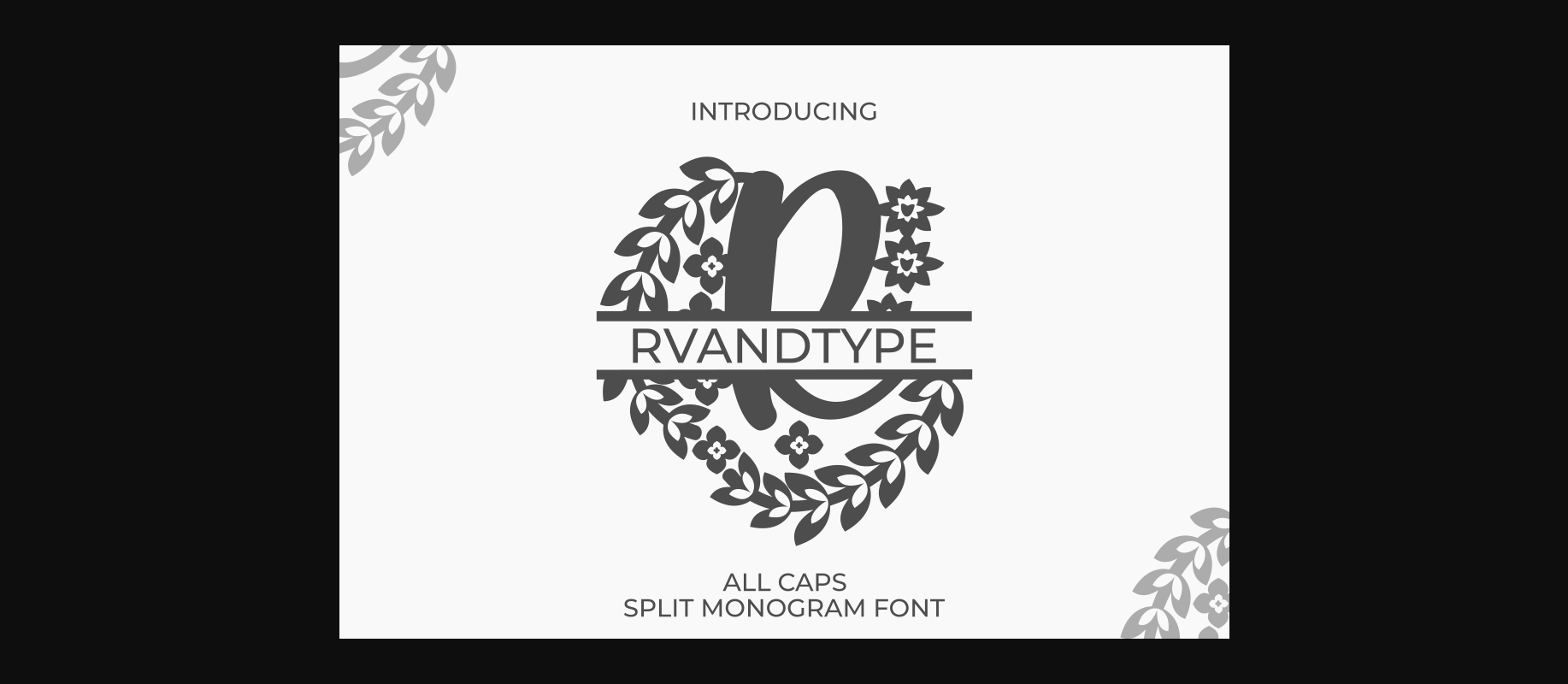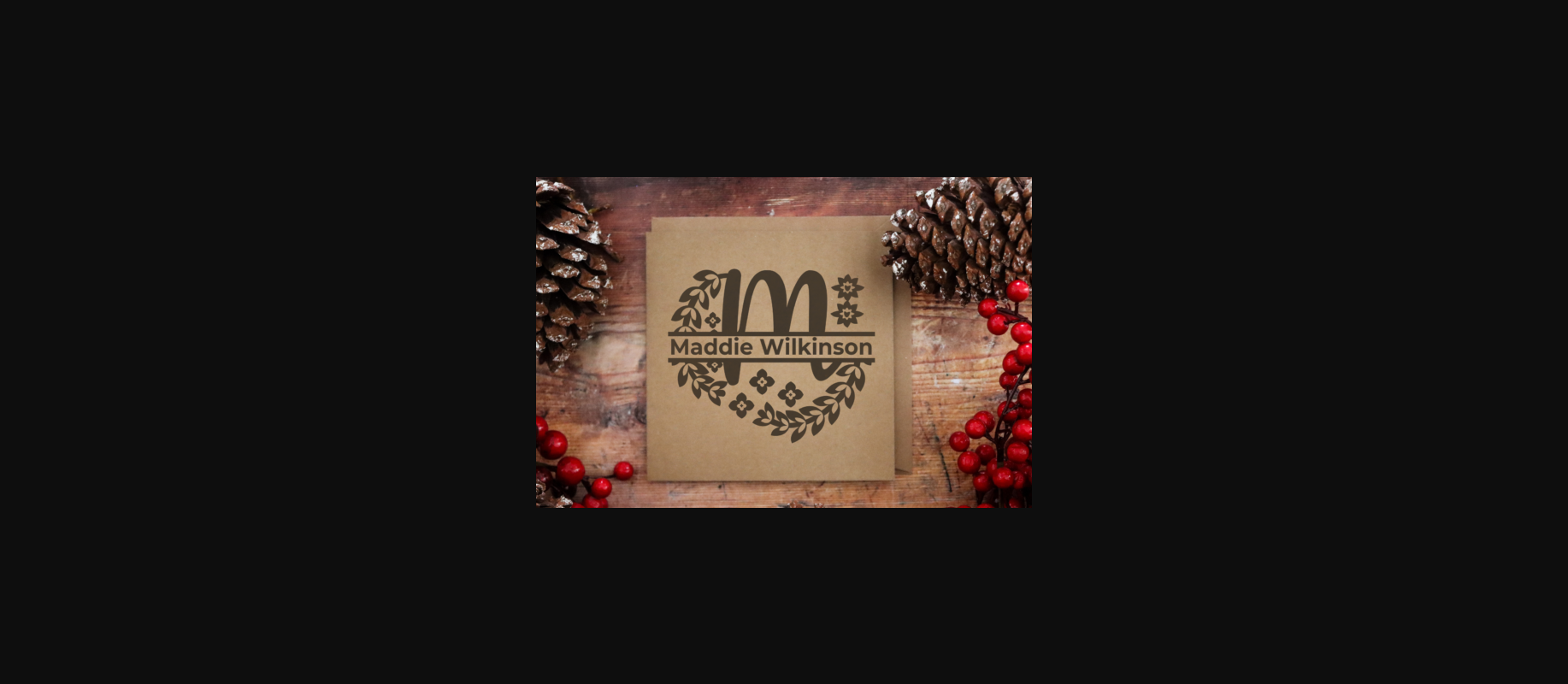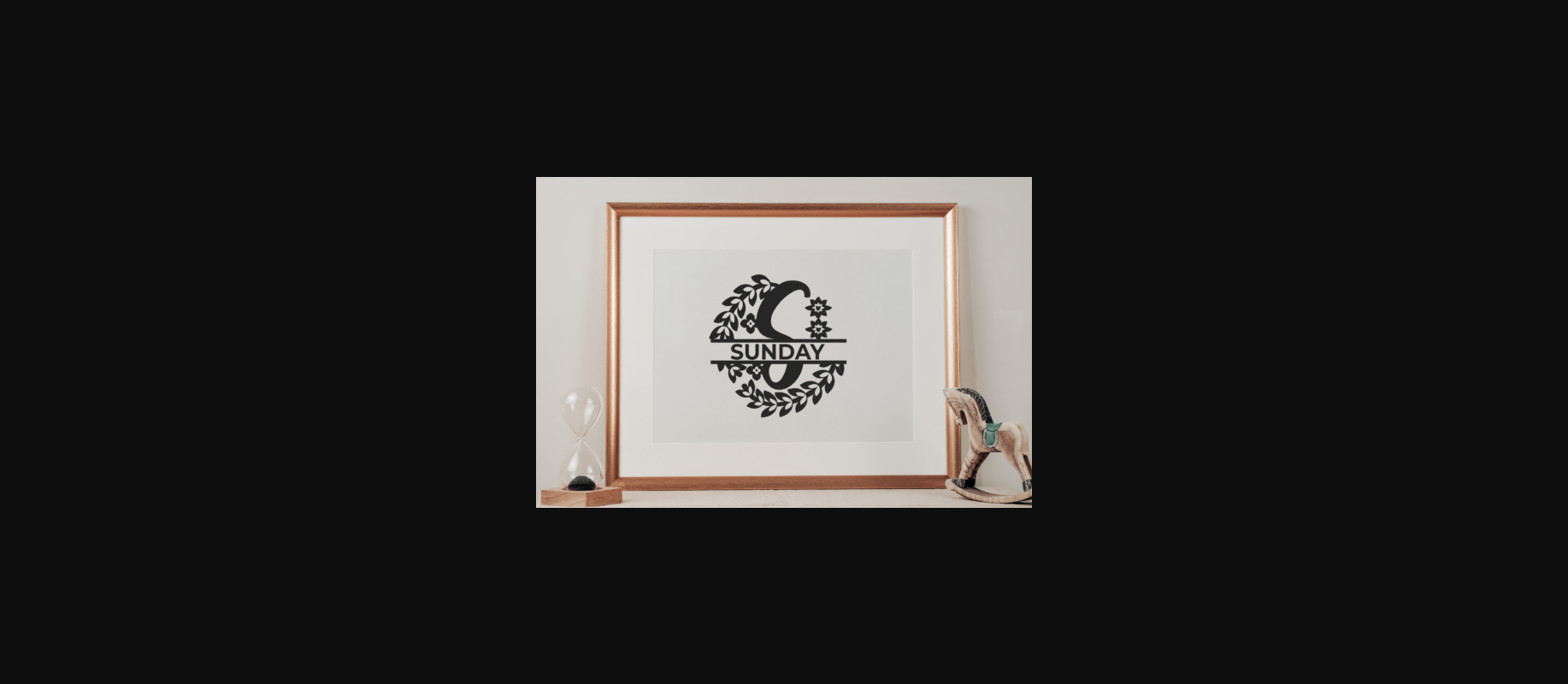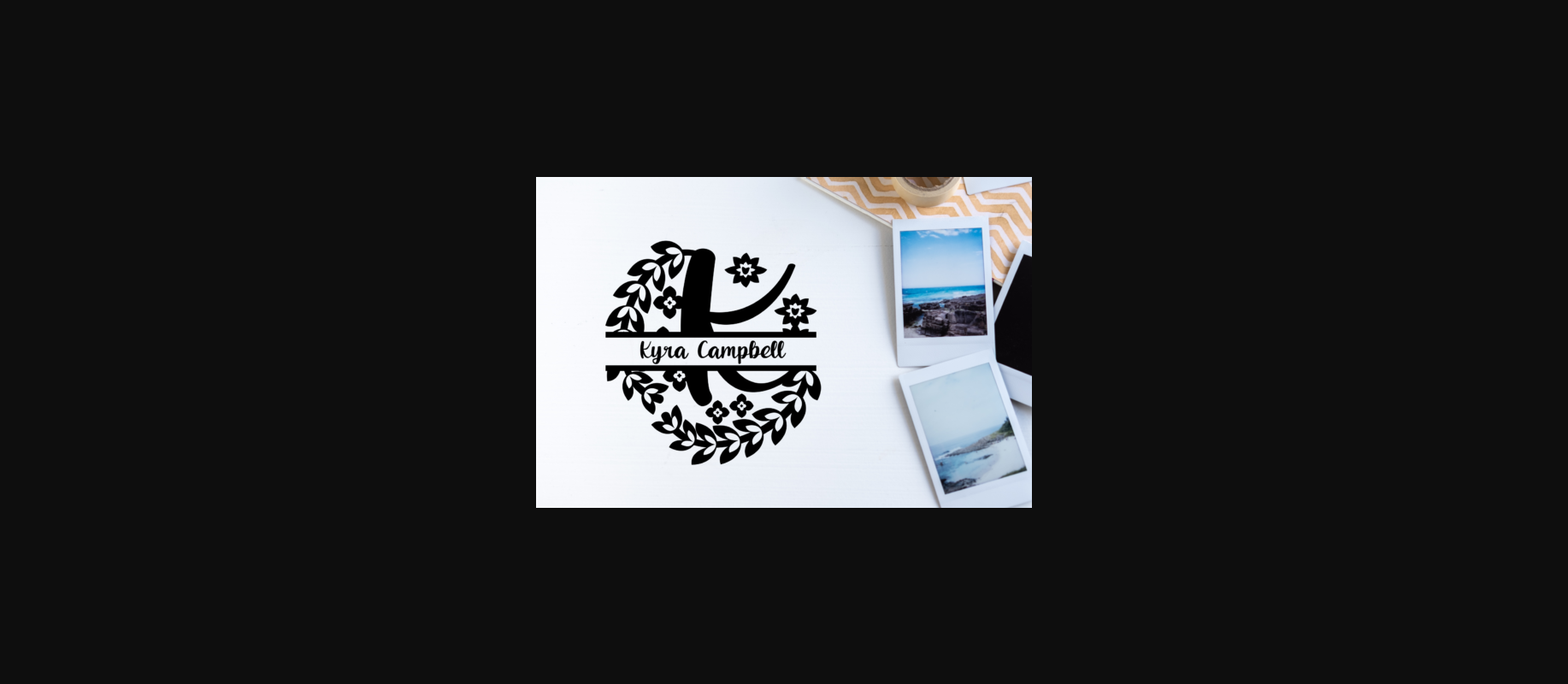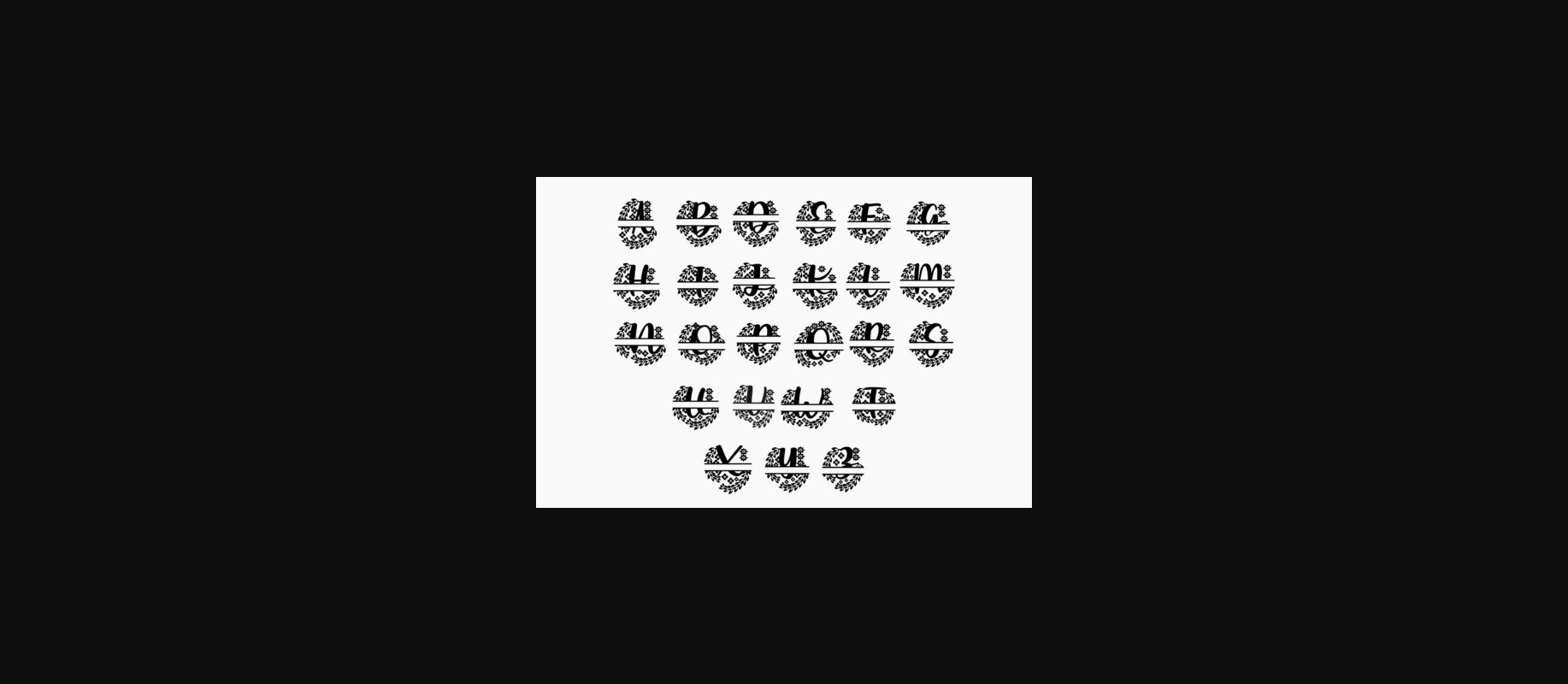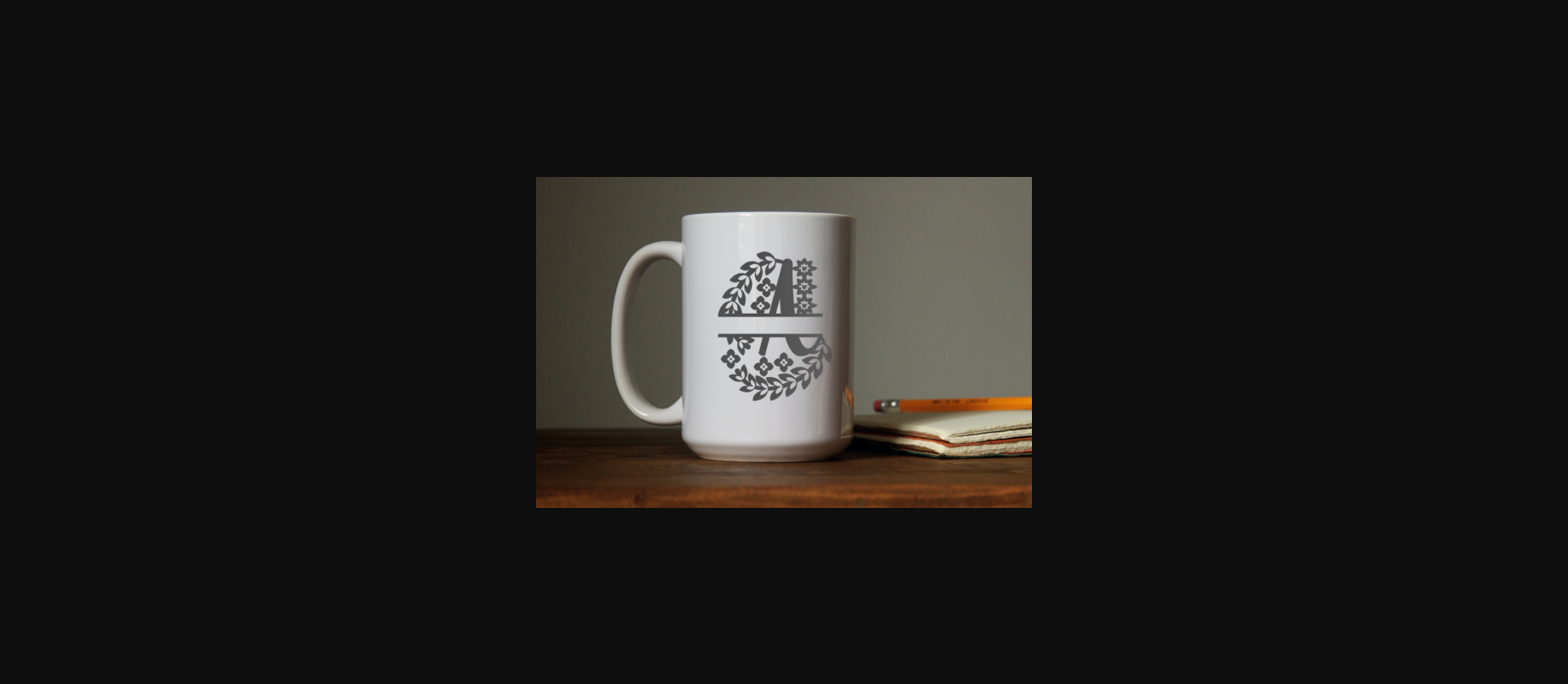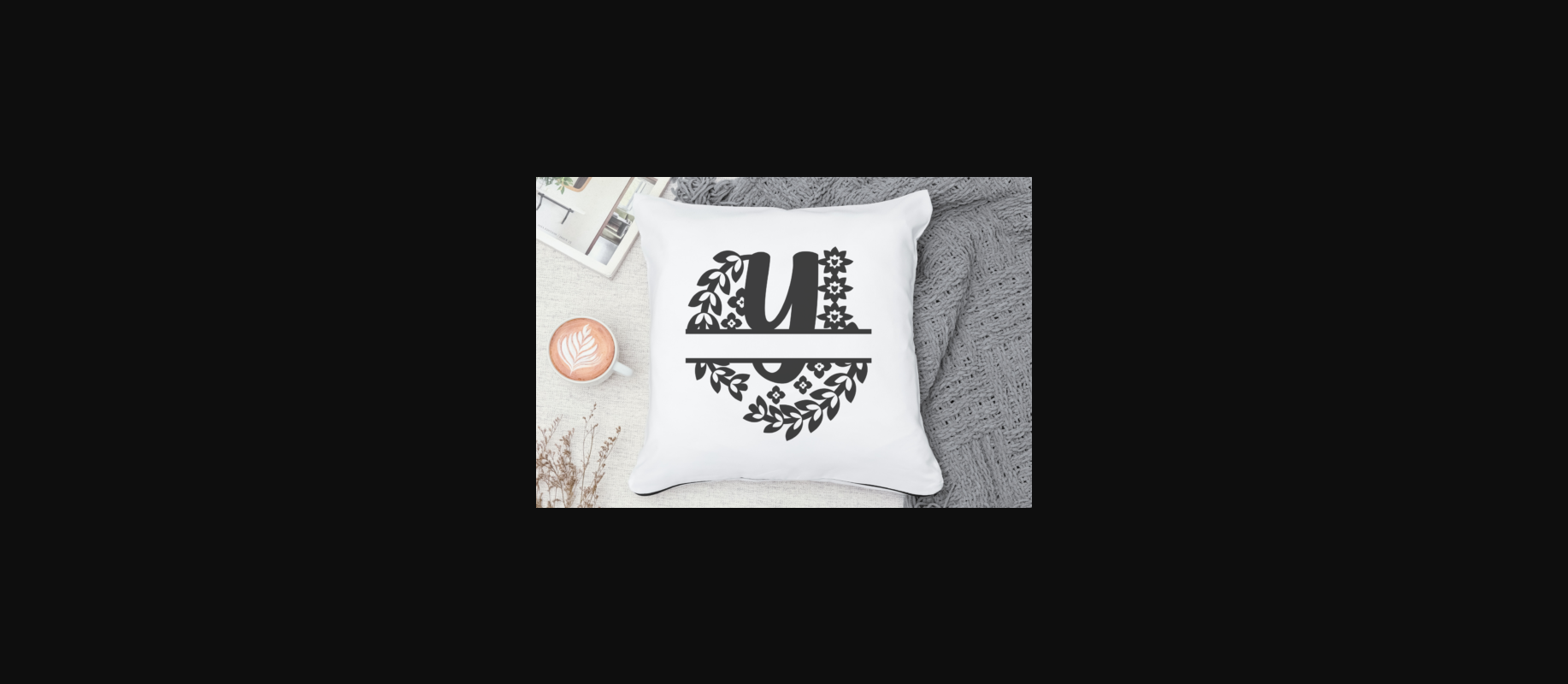
All Caps Split Monogram Font
About All Caps Split Monogram Font
All Caps Split Monogram is a stylish decorative font. It is perfect for your craft products such as printing or sublimating on shirts, invites, cards, gift tags. Its authentic look will add a personal and realistic feel to your designs.